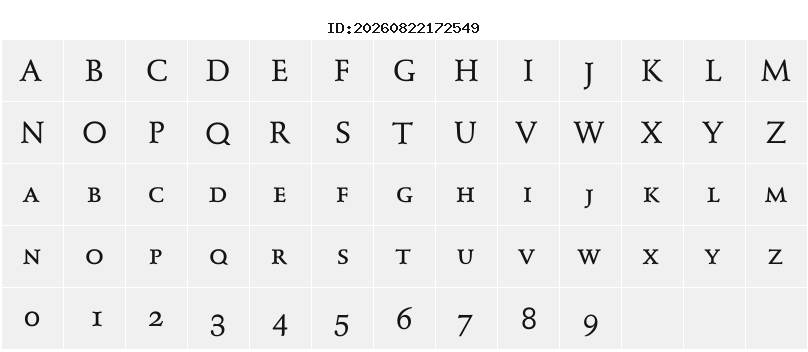
• Font Name: SchnittgerSmCaps
• Font ID: FontSite SchnittgerSmCaps Bold
• Full Font Name: SchnittgerSmCaps Bold
• Designer: F.H. Ernst Schneidler, 1936
• Manufacturer: The FontSite
• Description: Schnittger is a fine, legible text type that also works well in display. One of its more unique features is its question mark.